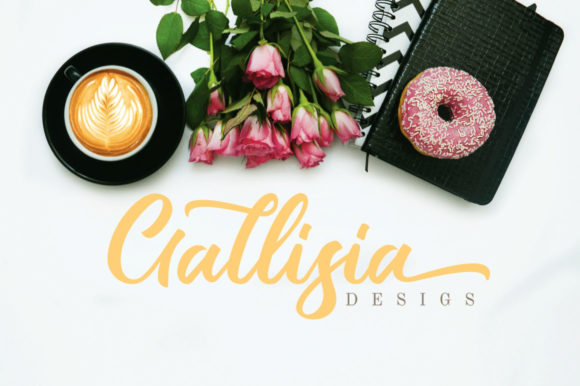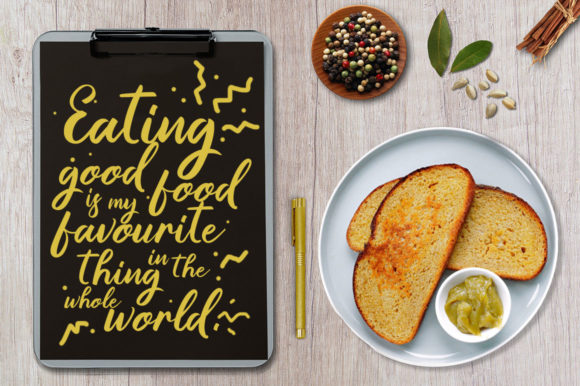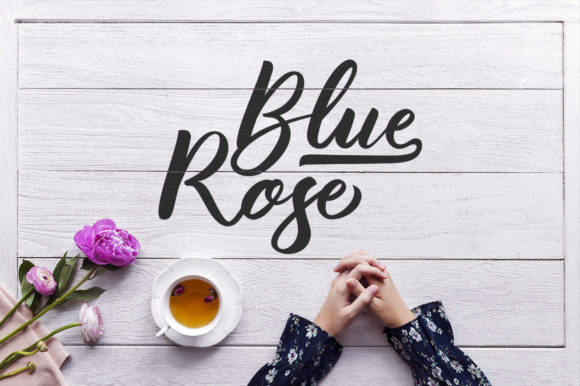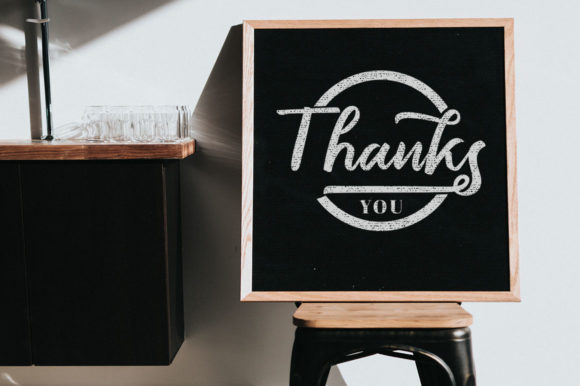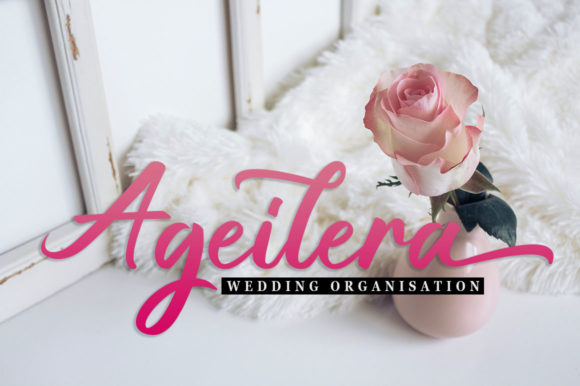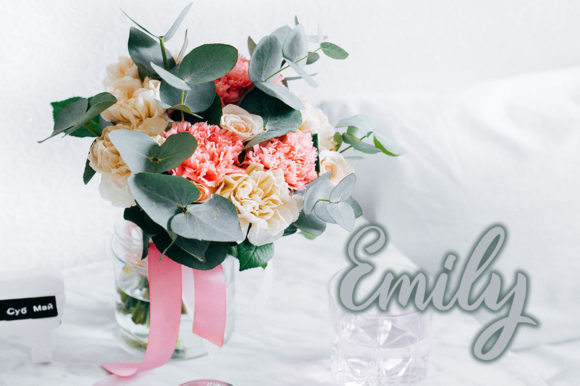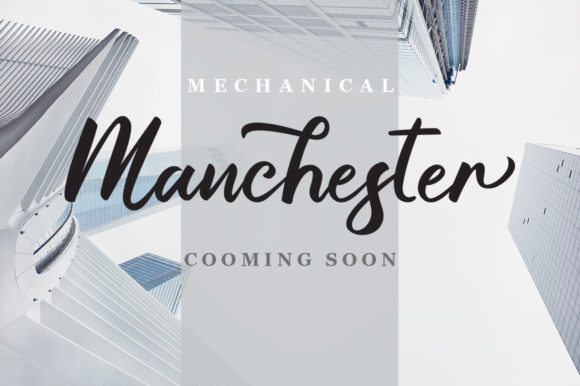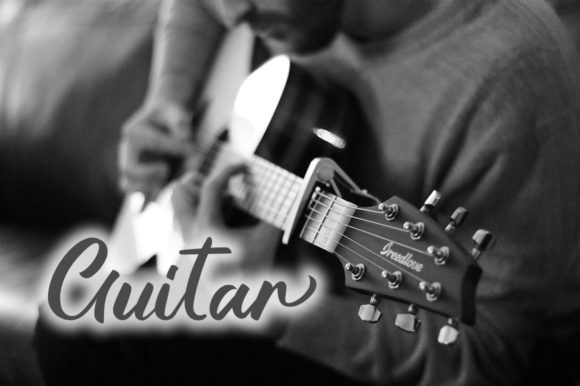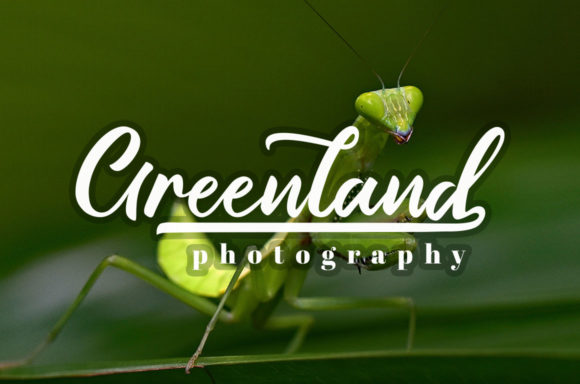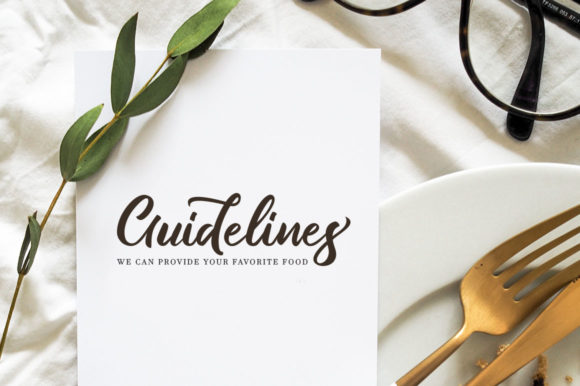
Gallisia Script Font
About Gallisia Script Font
Gallisia Script is a fresh, cool and modern handwritten font. It’s personal style makes it a perfectly authentic and unique font for any occasion.